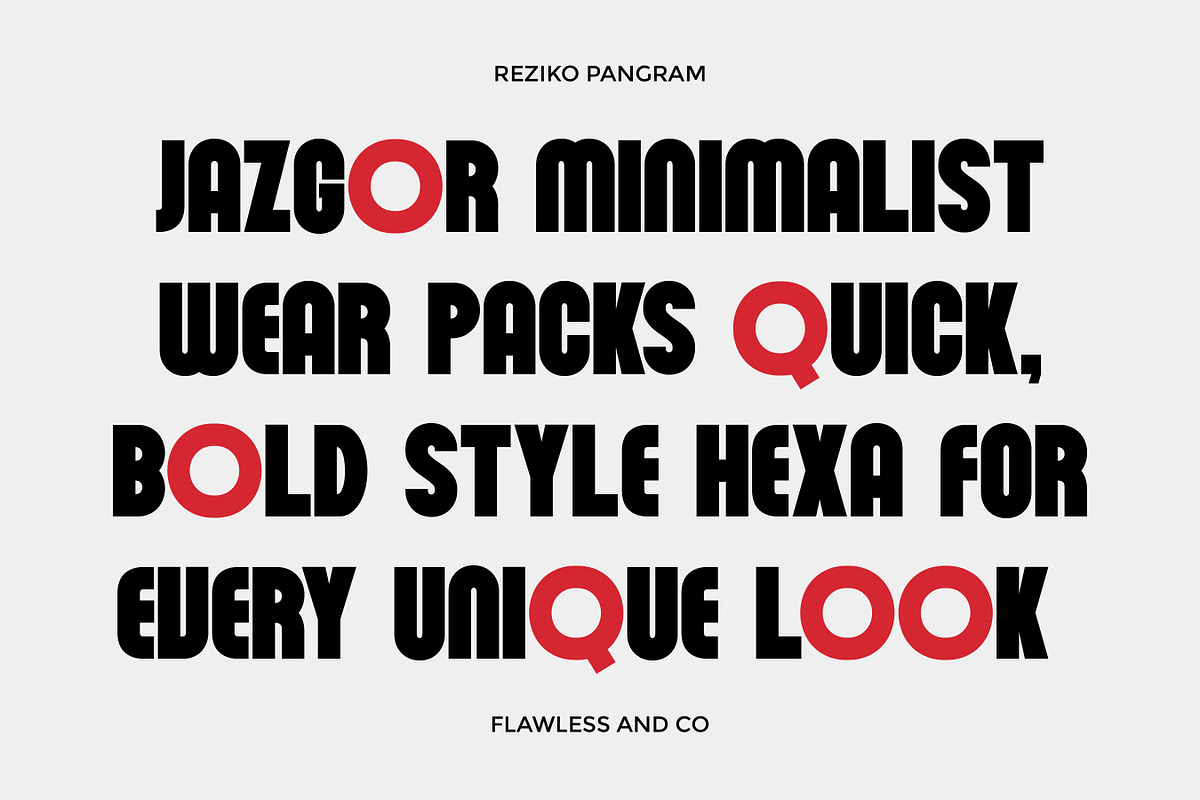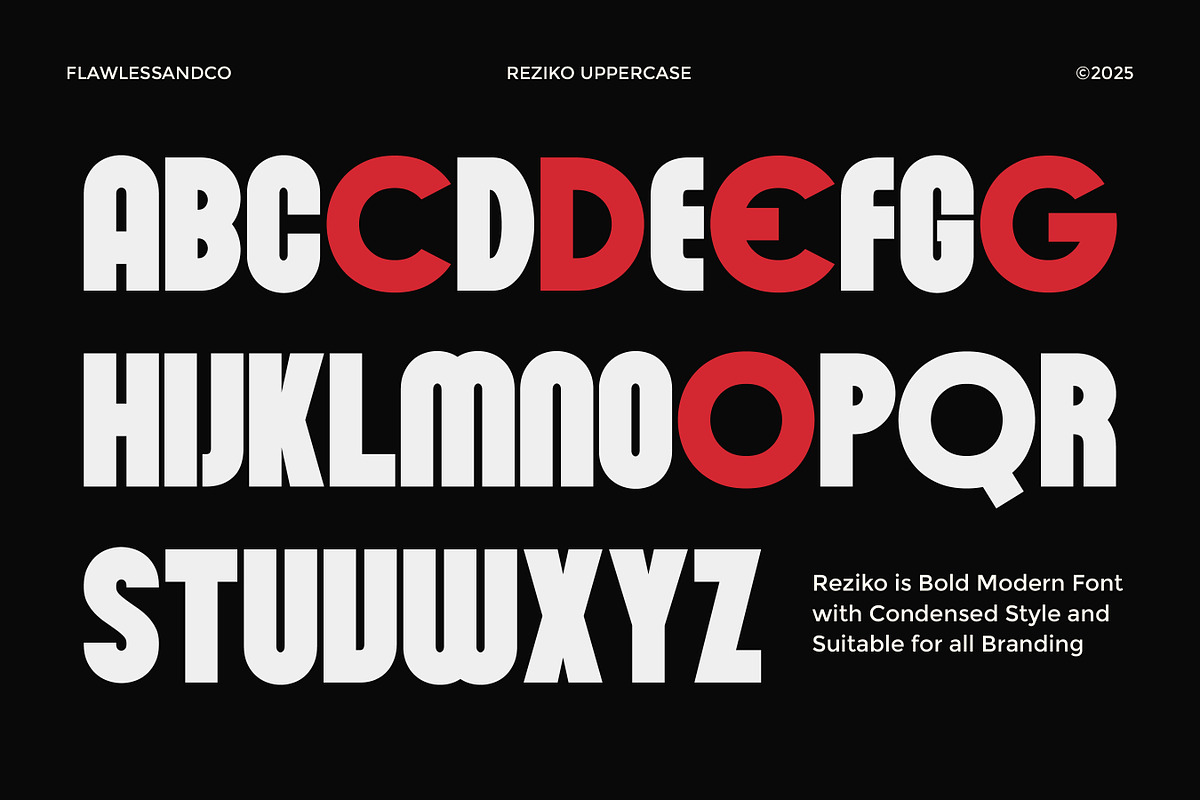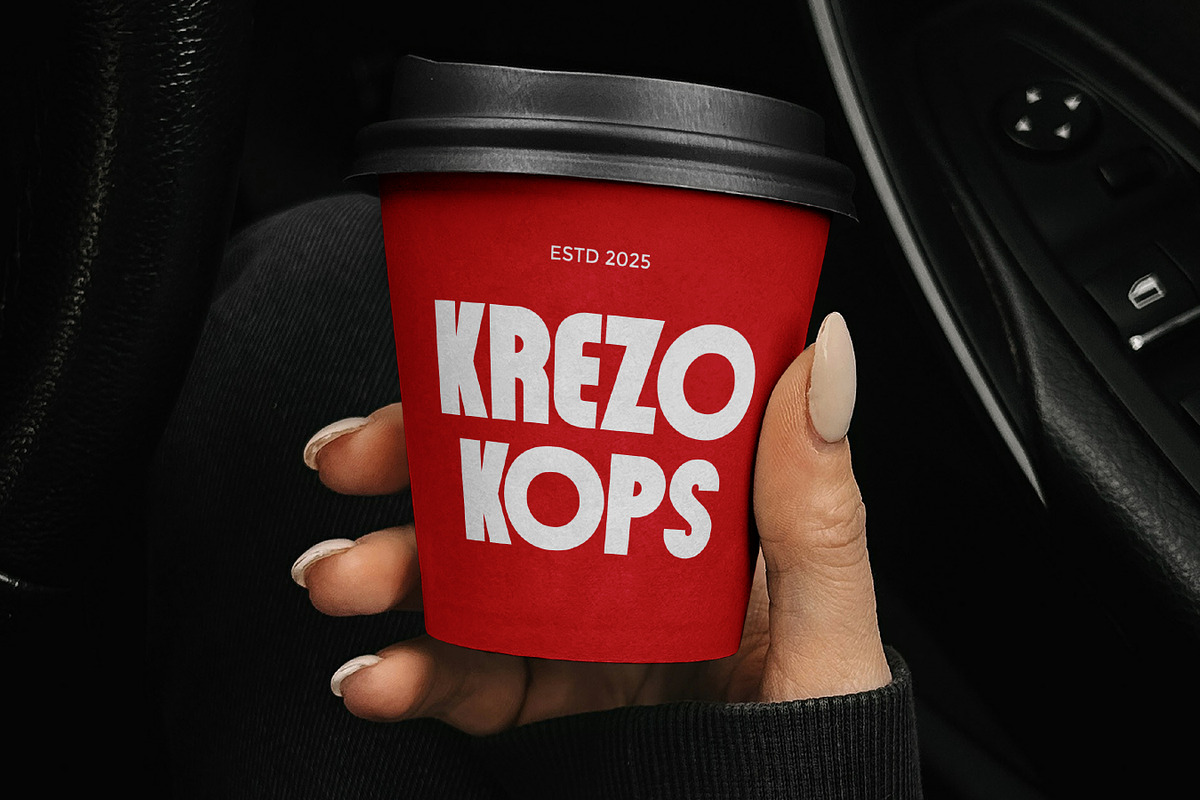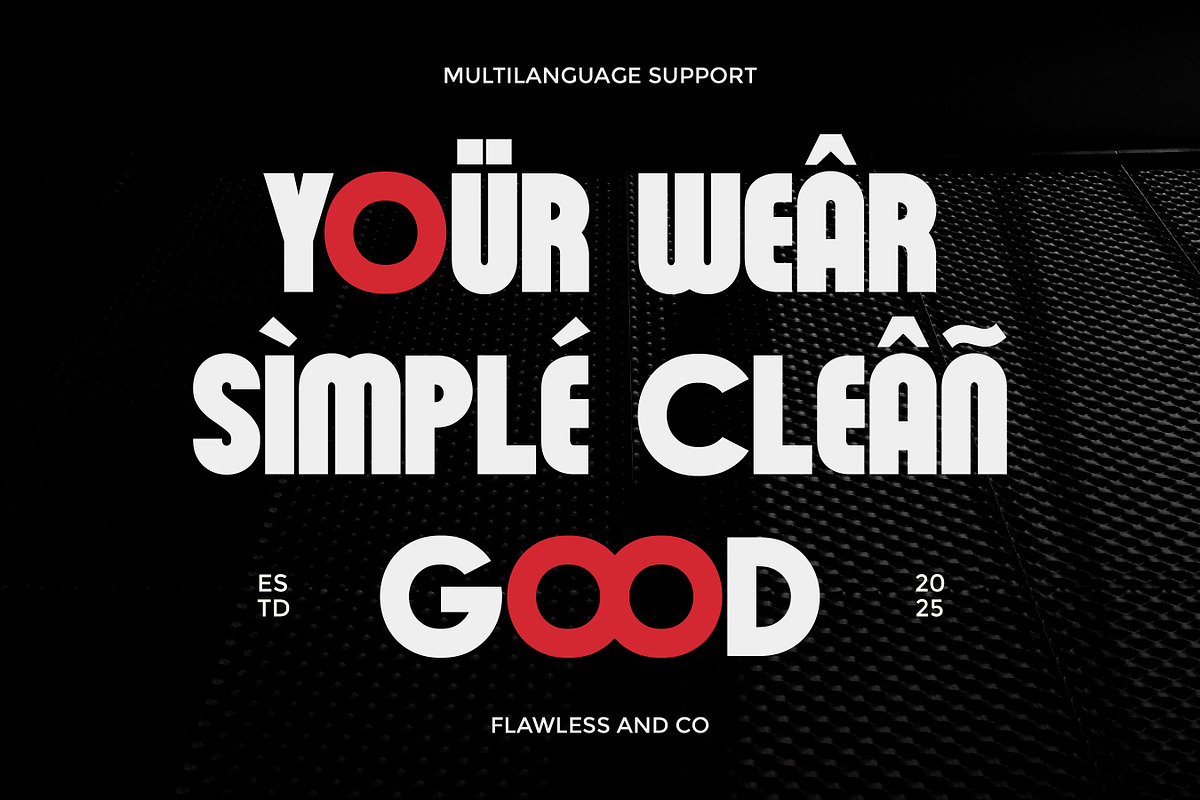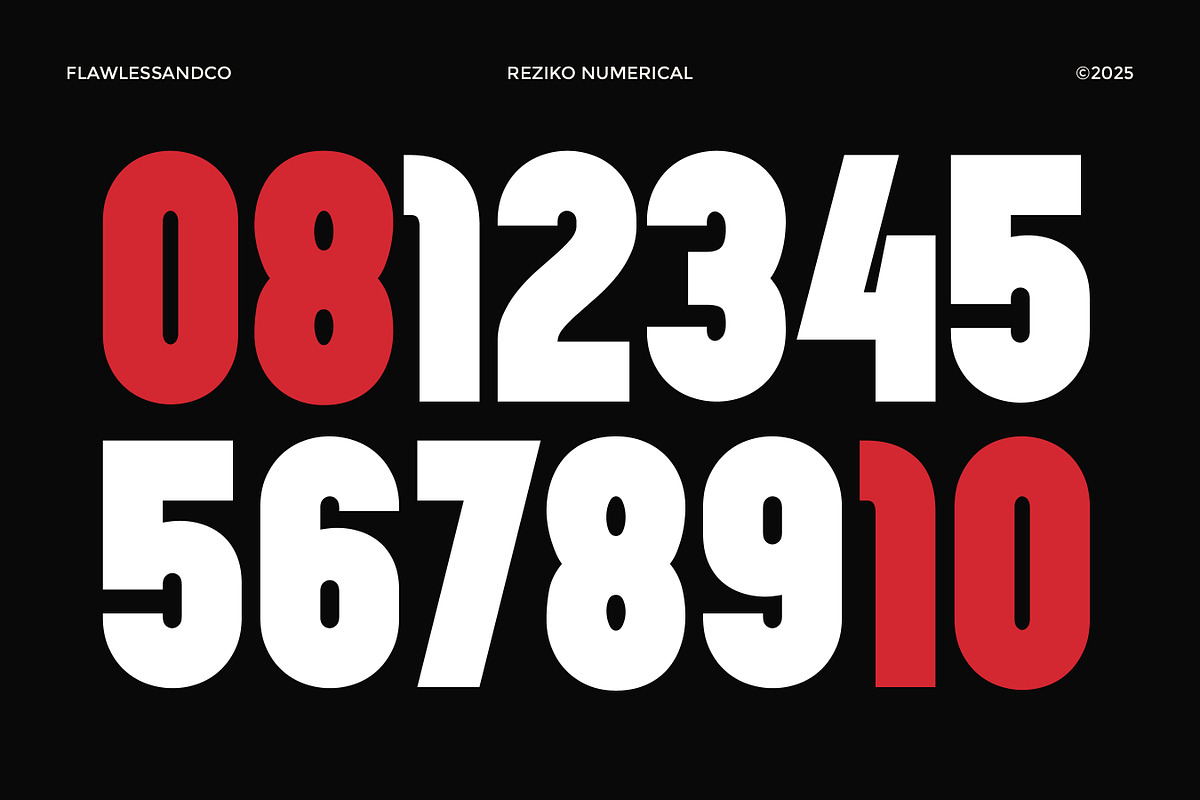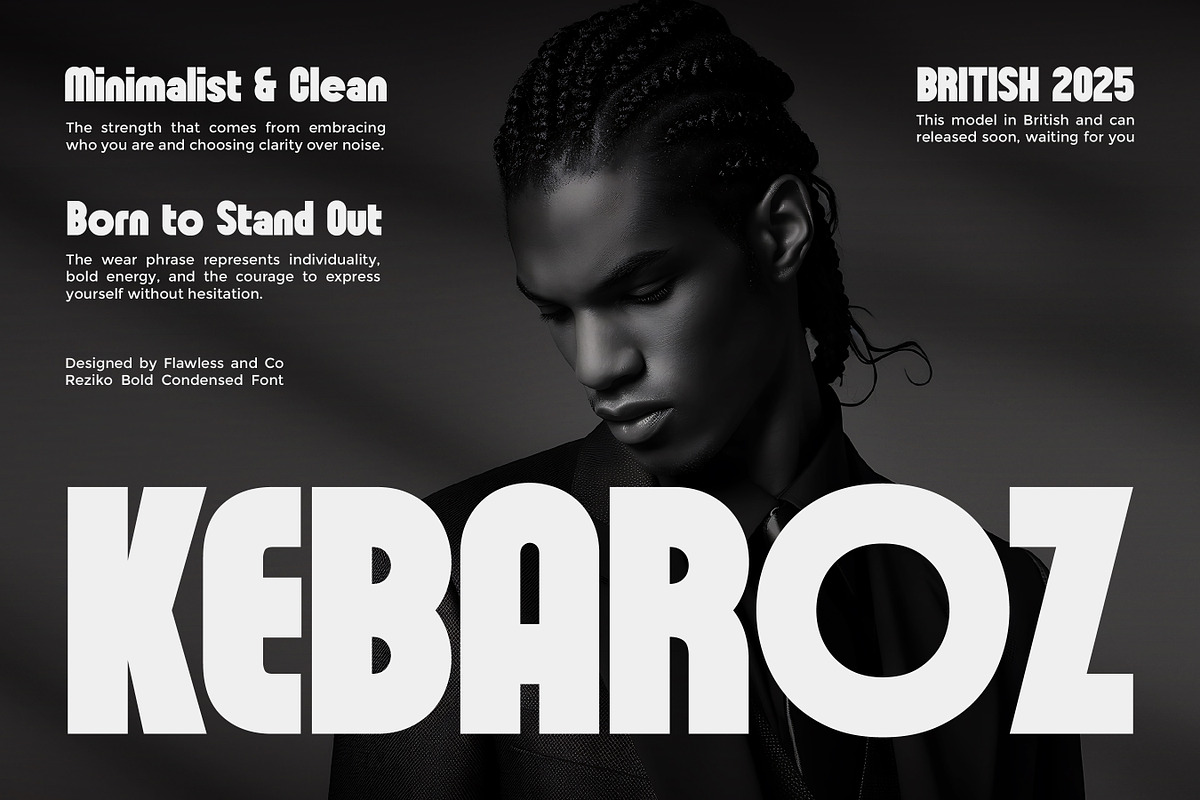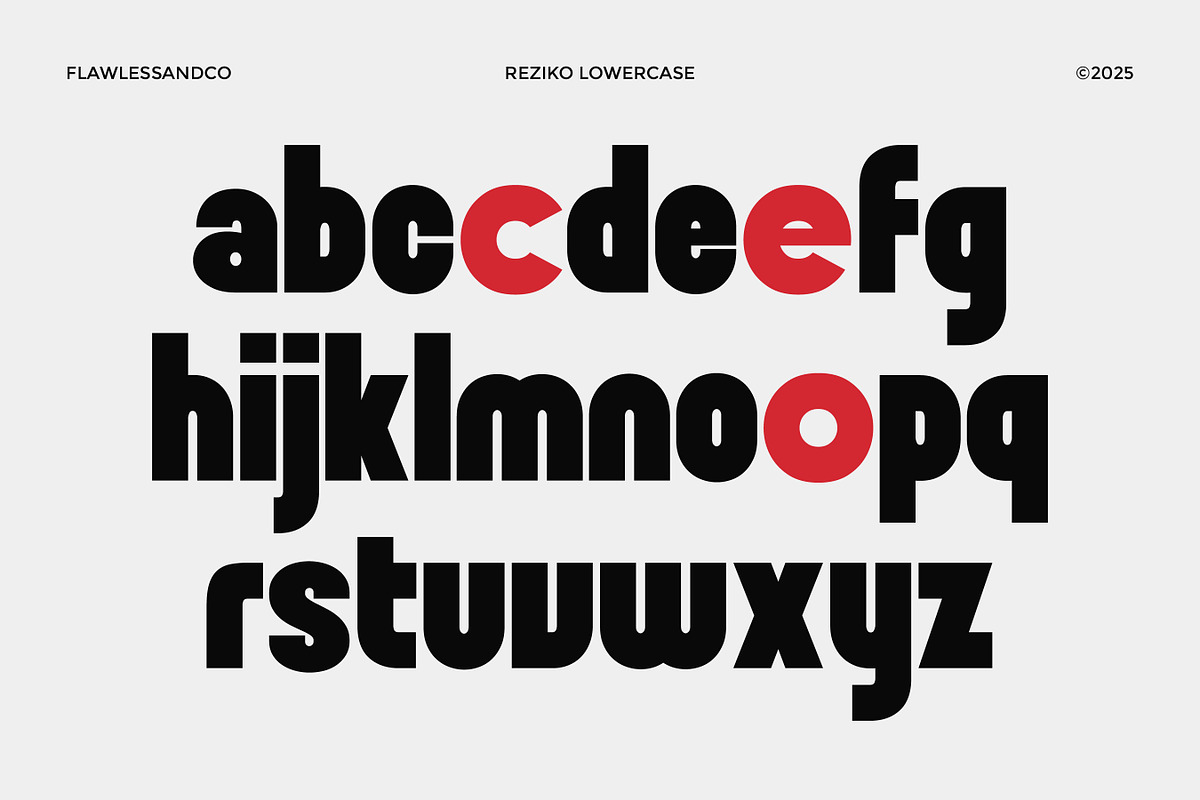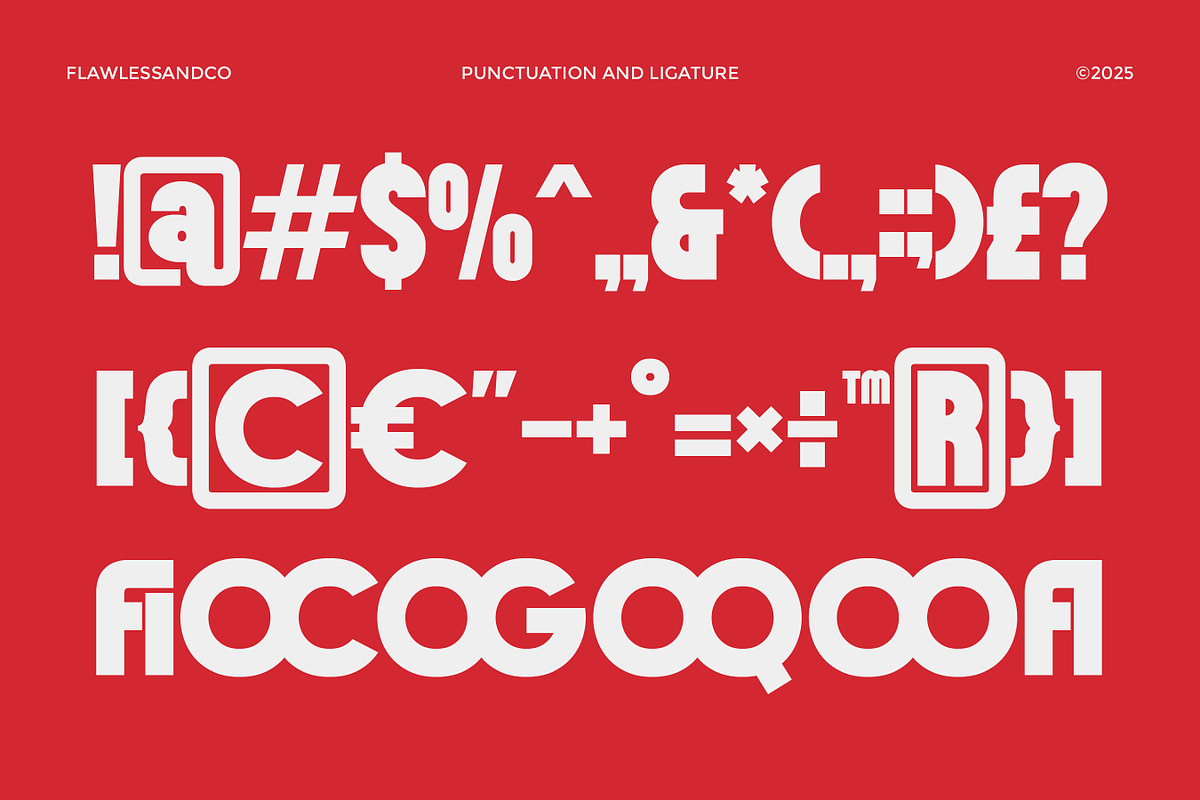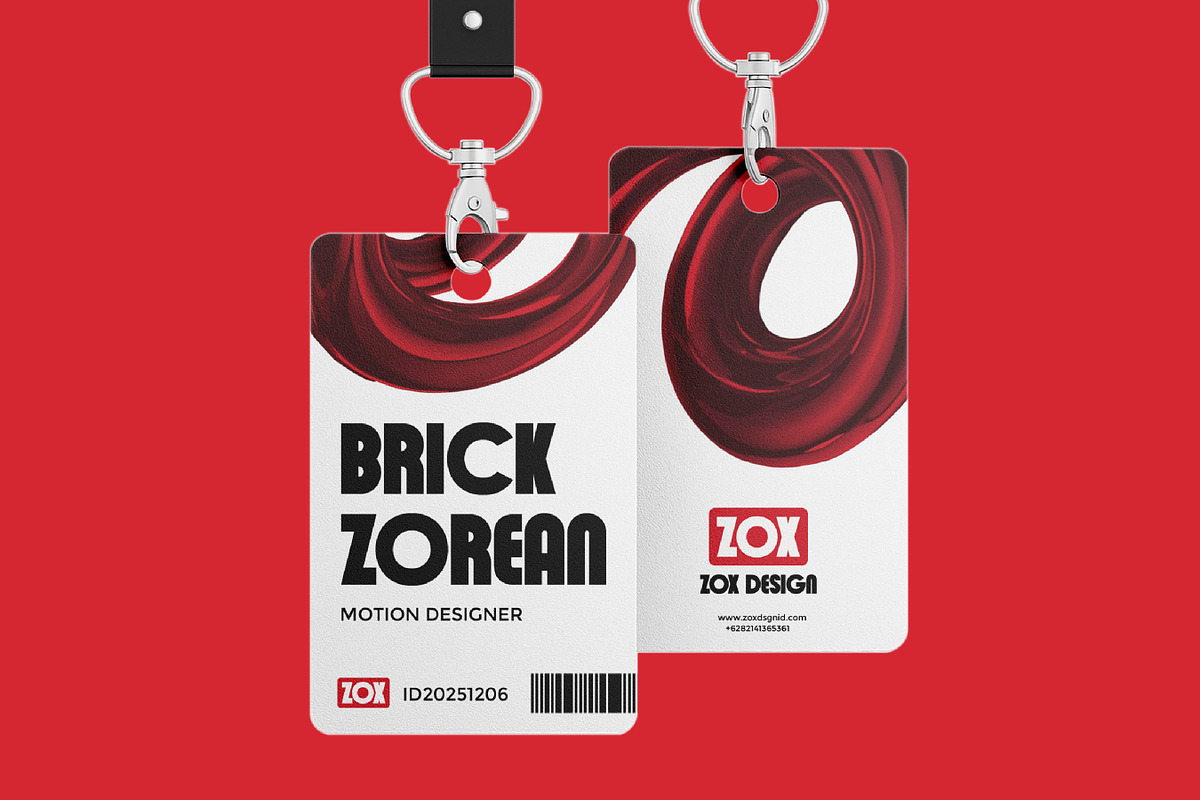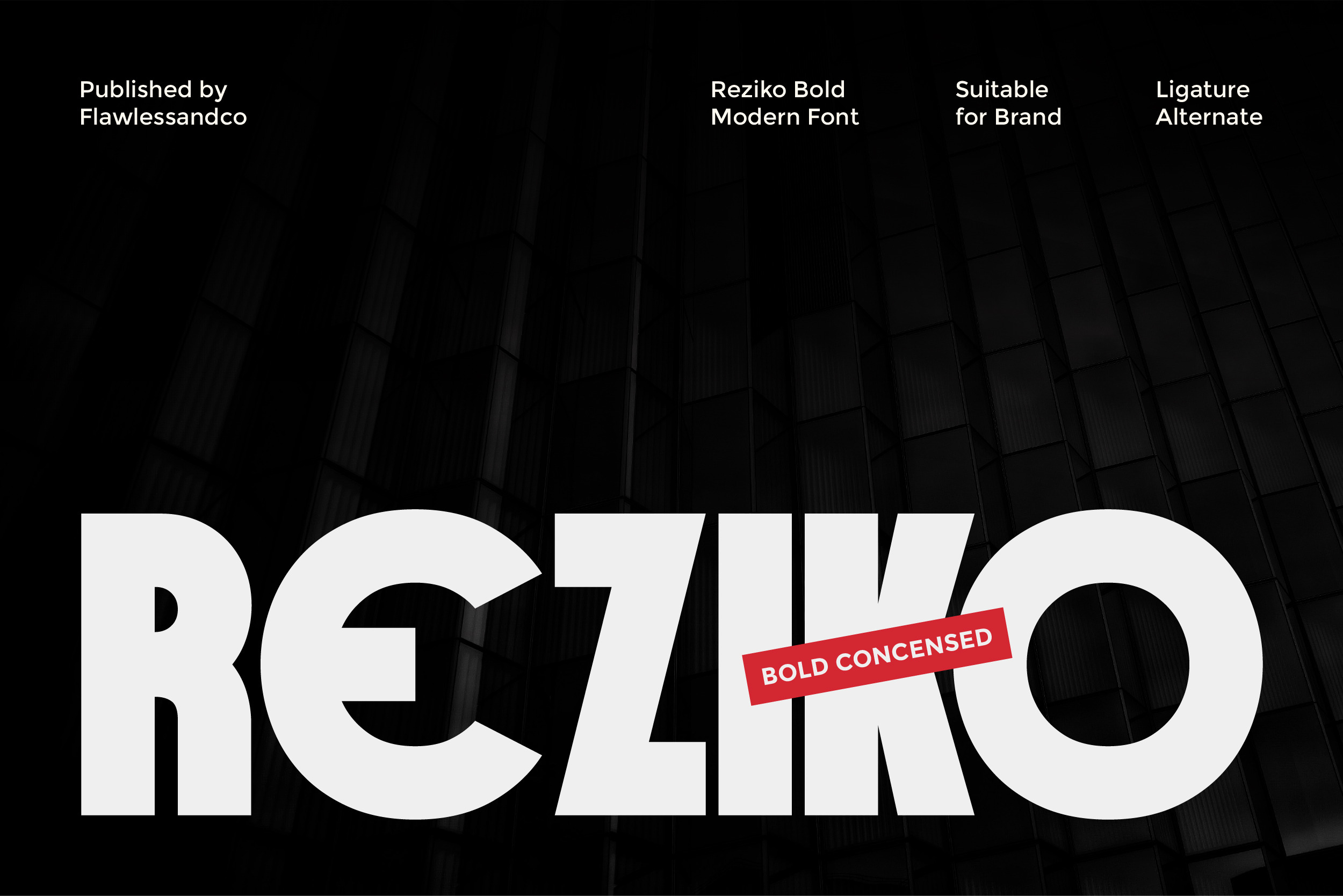
Reziko - Bold Condensed Font
Reziko is a bold modern condensed font designed to deliver a strong, confident, and contemporary visual impact. With its clean structure, tight spacing, and powerful letterforms, Reziko is perfect for brands that want to stand out with clarity and authority. This font combines modern aesthetics with a condensed style, making it ideal for impactful headlines and branding-focused designs.
Who Should Use Reziko?
Reziko is ideal for:
- Brand designers looking for a strong and modern typeface
- Logo creators who need bold and compact lettering
- Graphic designers working on impactful visual identities
- Creative studios focusing on contemporary and minimal design
- Businesses that want a professional and confident brand presence
A Must-Have Font for Brand and Logo Creators and Designers
Reziko is a must-have typeface for designers who need a bold condensed font that performs exceptionally well in branding and logo projects. Its modern style ensures excellent readability while maintaining a striking and professional appearance across both digital and print media.
Why Choose Reziko for Brand and Logo Projects?
Reziko is designed to bring strength and clarity to brand and logo designs. Its bold condensed form creates a powerful visual presence while saving space, making logos look modern, clean, and professional. The sharp structure and balanced proportions ensure excellent readability, even at smaller sizes. Reziko helps brands communicate confidence, impact, and a strong contemporary identity across both digital and print media.
Suitable for:
- Brand identity and logo design
- Corporate and business branding
- Modern posters and advertisements
- Headlines and bold typography layouts
- Editorial and magazine titles
- Packaging design
- Social media graphics
- Website headers and landing pages
- Sports and lifestyle branding
- Promotional and marketing materials